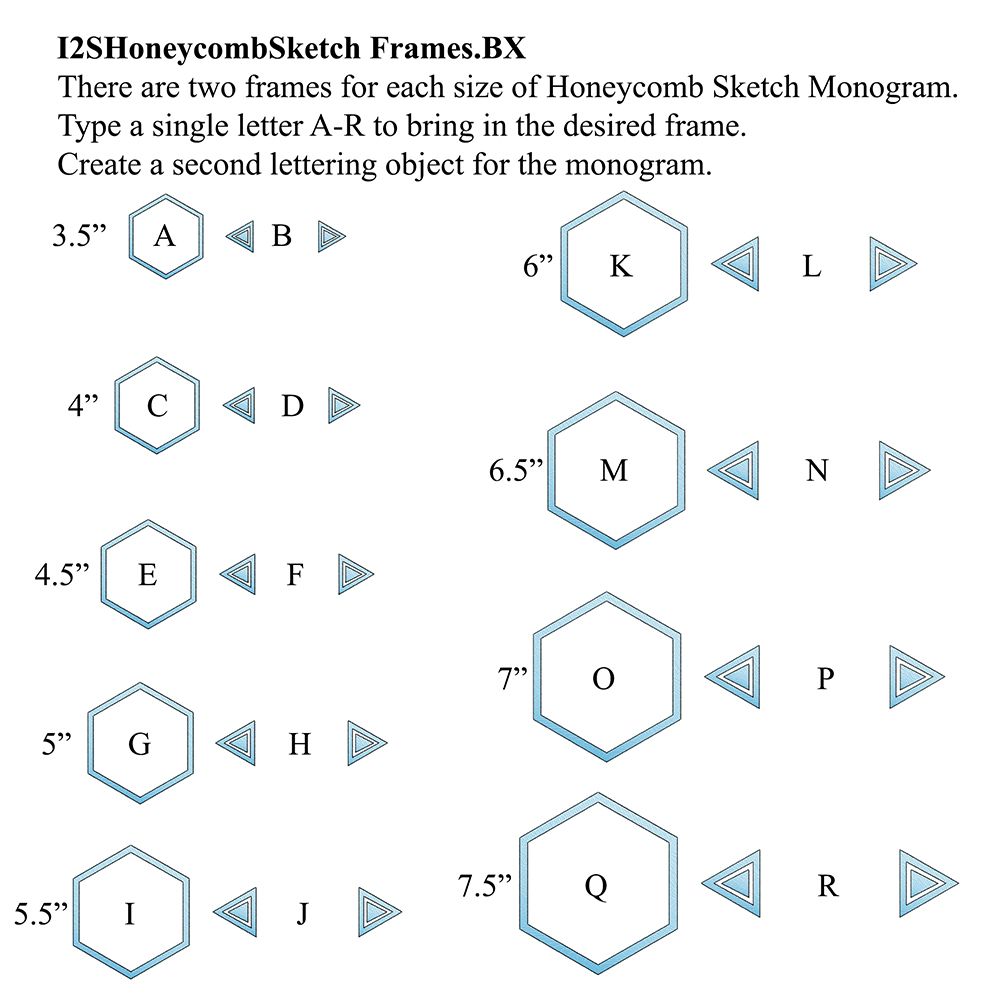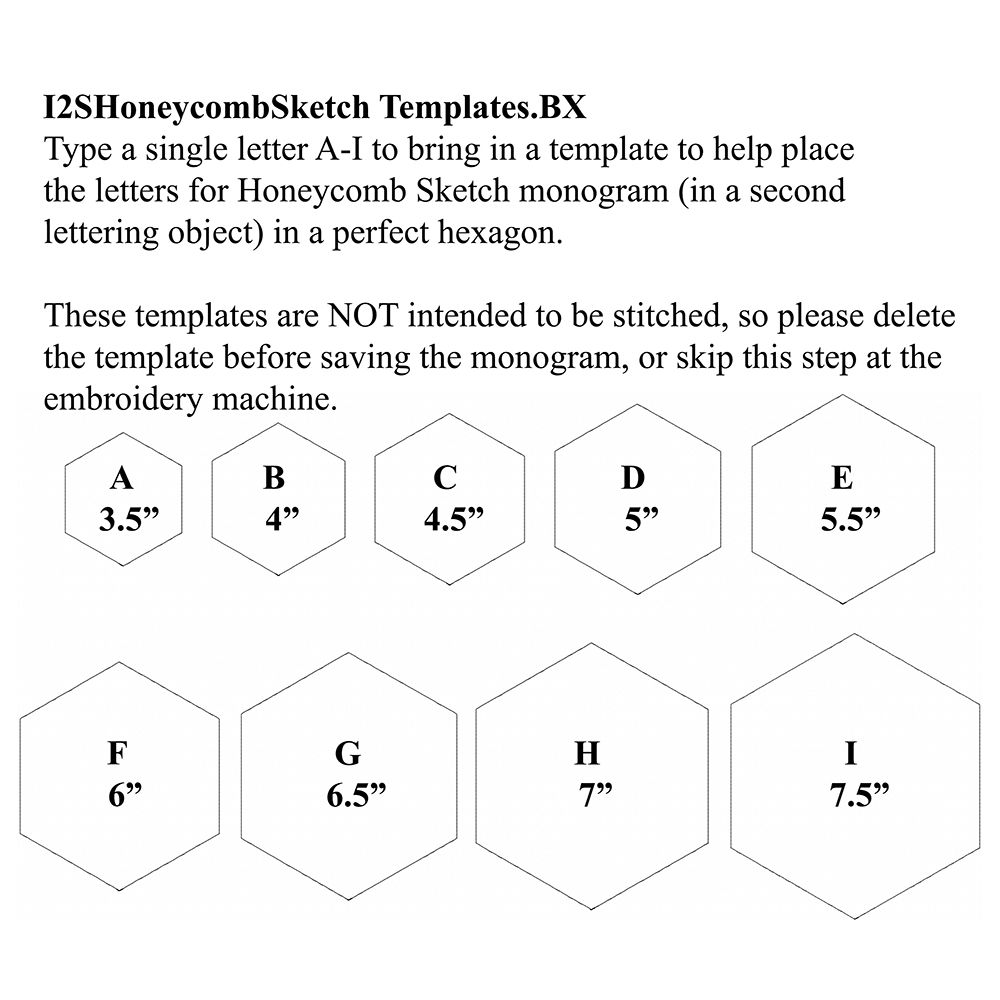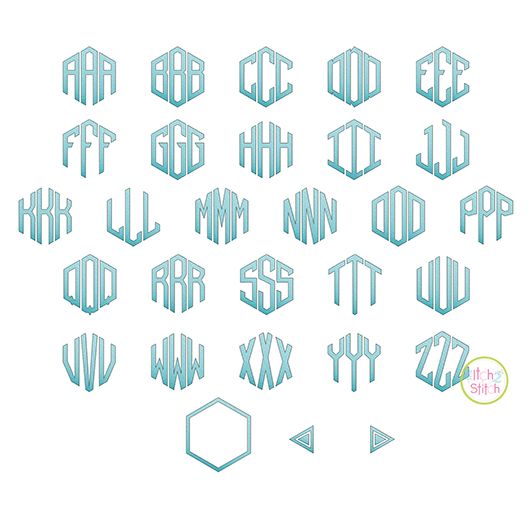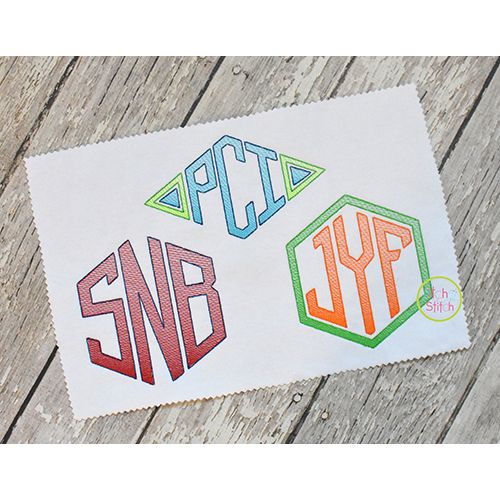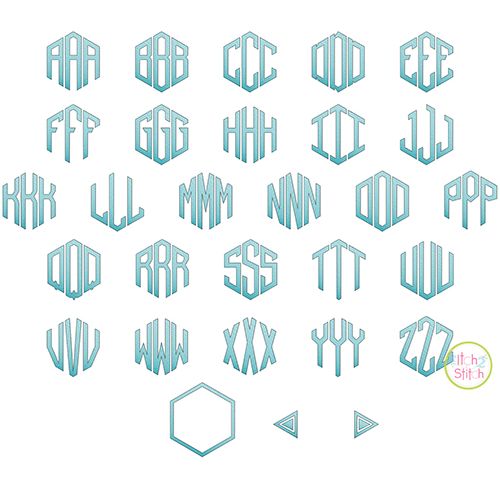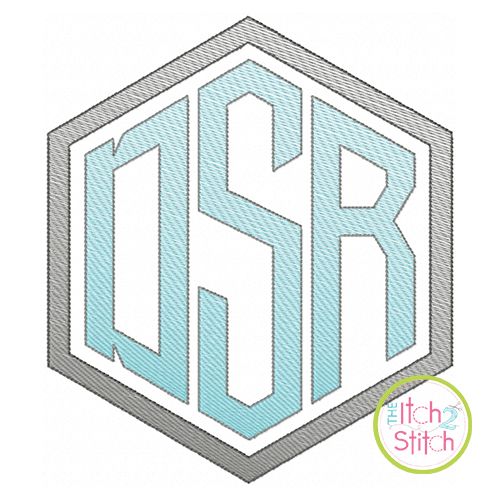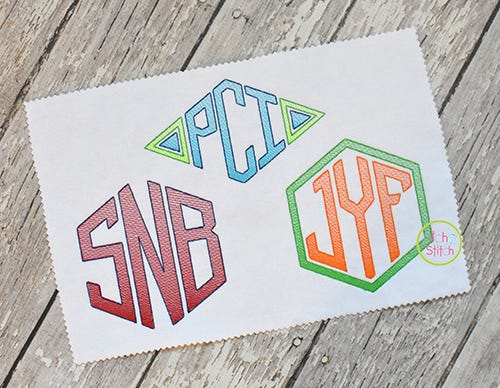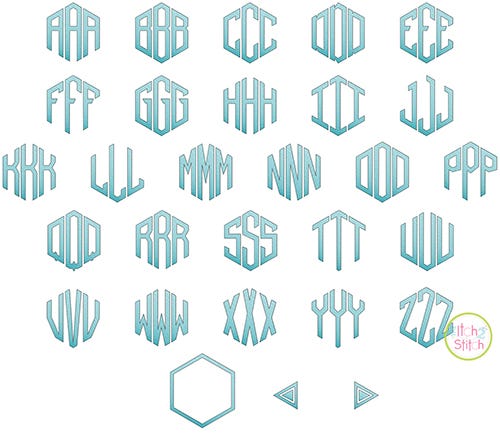
Honeycomb Sketch Monogram Embroidery Font
Please note this is not applique, nor is it a traditional satin or fill stitch font. The light and airy "sketch" fill pattern allows for a quick stitch out. The space between each line of stitching varies such that it is more dense at the bottom than the top of each letter to create the shading effect. The letter is finished off with a triple bean stitch outline. We do not recommend resizing this font in software.